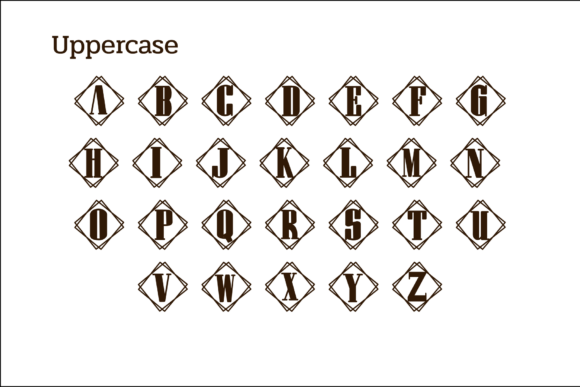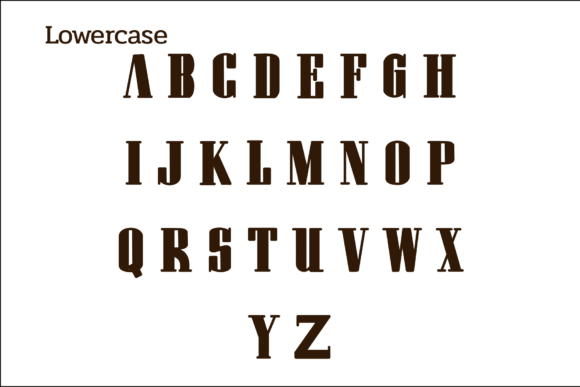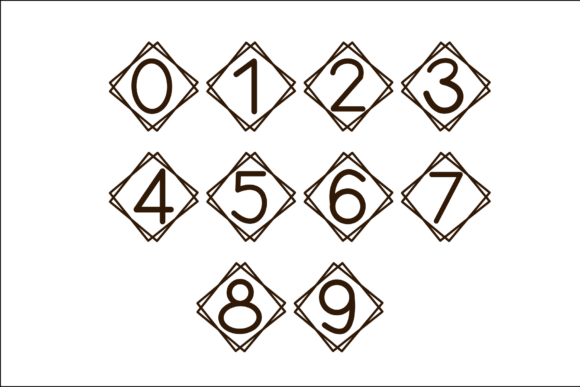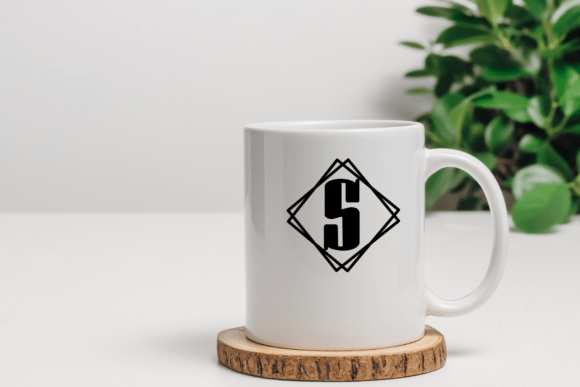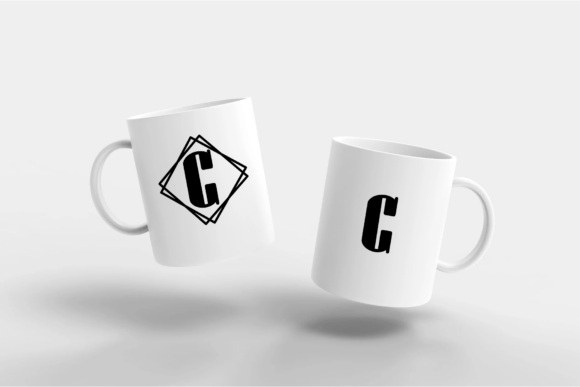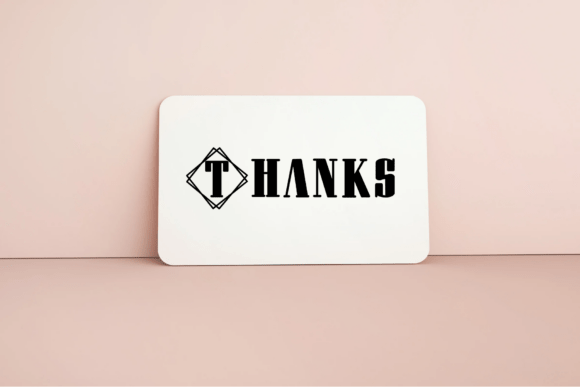
Introducing Bank Holiday Font: Elevate Your Designs with a Decorative Twist
Are you on the lookout for a font that adds a touch of personality to your designs? Look no further than the Bank Holiday font! This decorative font is perfect for crafters, designers, and anyone looking to add a creative flair to their writing or designs. In this article, we’ll dive into the world of Bank Holiday font, exploring its uses, benefits, and how you can incorporate it into your projects.
What is Bank Holiday Font?
Bank Holiday font is a unique and decorative typeface that can add a touch of elegance and whimsy to your designs. Its distinctive style makes it perfect for a variety of creative projects, from personal notes and diaries to professional designs and marketing materials.
Uses of Bank Holiday Font
One of the best things about Bank Holiday font is its versatility. Here are some ideas for using this amazing font:
• Note-taking and journaling: Add a decorative touch to your notes and diary entries with Bank Holiday font. It’s perfect for bullet journaling, and scrapbooking.
• Greeting cards and invitations: Create beautiful and unique greeting cards, invitations, and party decorations with Bank Holiday font.
• Banners and signs: Use Bank Holiday font to create eye-catching banners and signs for events, parties, or promotions.
• Social media posts: Add a decorative touch to your social media posts and make them stand out from the crowd.
• Merchandise: Use Bank Holiday font to create custom mugs, t-shirts, and other merchandise.
• Stationery: Add a touch of elegance to your stationery, including letters, and gift tags.
Benefits of Using Bank Holiday Font
So, why choose Bank Holiday font for your designs? Here are some benefits:
• Unique and eye-catching: Bank Holiday font is a one-of-a-kind font that will make your designs stand out from the crowd.
• Versatile: Use Bank Holiday font for a wide range of projects, from personal to professional.
• High-quality: Bank Holiday font is a high-quality font that will give your designs a professional finish.
Tips for Using Bank Holiday Font
Here are some tips for getting the most out of Bank Holiday font:
• Experiment with different colors: Try pairing Bank Holiday font with different colors and backgrounds to create unique and eye-catching designs.
• Mix and match: Combine Bank Holiday font with other fonts and design elements to create interesting and dynamic designs.
• Keep it simple: Don’t be afraid to keep your designs simple and elegant. Bank Holiday font is perfect for minimalist designs.
Where to Use Bank Holiday Font
Bank Holiday font is perfect for a wide range of projects and applications. Here are some ideas:
• Personal projects: Use Bank Holiday font for personal projects, such as journaling, scrapbooking, and card making.
• Professional designs: Use Bank Holiday font for professional designs, such as marketing materials, brochures, and flyers.
• Social media: Use Bank Holiday font to create eye-catching social media posts and graphics.
• Merchandise: Use Bank Holiday font to create custom merchandise, such as mugs, t-shirts, and tote bags.
In conclusion, Bank Holiday font is a versatile and decorative font that can add a touch of personality to your designs. With its unique style and wide range of uses, it’s perfect for crafters, designers, and anyone looking to add a creative flair to their writing or designs. So why not give Bank Holiday font a try and see how it can elevate your designs?